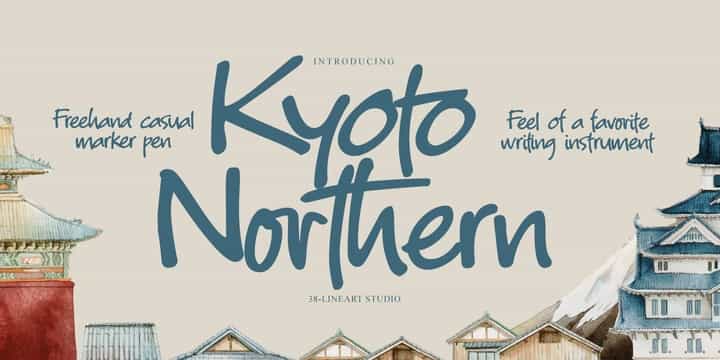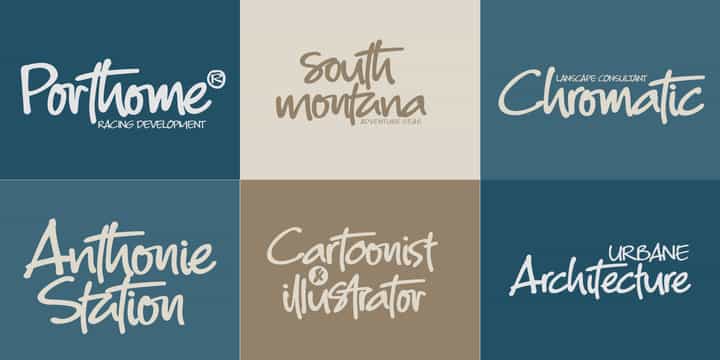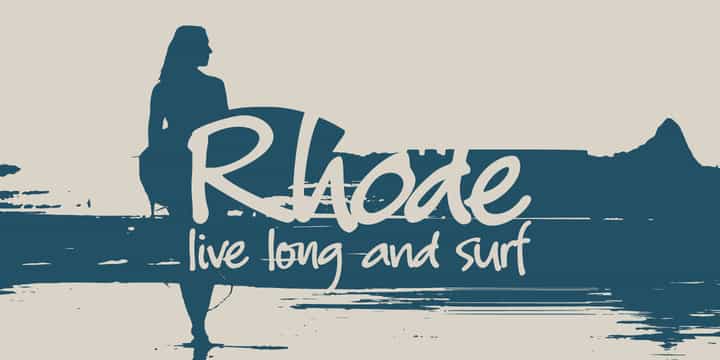
Kyoto Northern is perfect for the brand identity and can be successfully used for packaging, web banners, headlines as well as for a business card, it is quite natural and unique. This font is written with a marker pen; it is able to use the ligature as the style of writing quickly and unconsciously so you are felt the handwriting style which is quite natural.